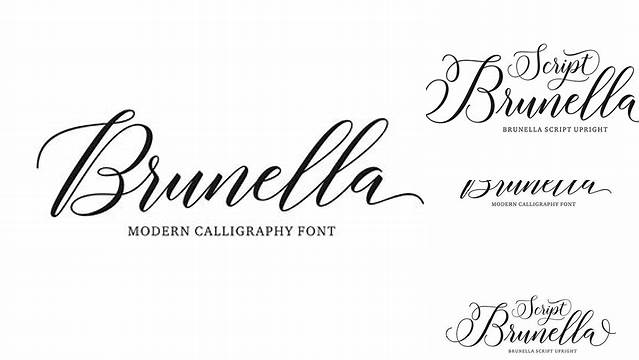
Hey guys! Ever stumbled upon a font that just speaks to you? That's Brunella Script for me. It’s elegant, it’s flowing, and it adds that perfect touch of class to any project. And the best part? You can snag the regular font for free! Let’s dive into everything Brunella Script, from what makes it so special to where you can download it and how to use it.
Brunella Script Regular: An Overview
Brunella Script Regular is a beautifully crafted typeface that exudes sophistication and charm. It’s perfect for adding a touch of elegance to invitations, logos, and branding materials. The flowing lines and delicate curves make it incredibly versatile, fitting seamlessly into both digital and print designs. What makes Brunella Script Regular stand out is its readability and aesthetic appeal, ensuring your message is not only seen but also felt. It's designed with precision, ensuring each character complements the others, resulting in a harmonious and visually pleasing text.
The Allure of Script Fonts
Why are script fonts like Brunella Script so popular? Well, they bring a human touch to digital designs. Unlike blocky, sans-serif fonts, script fonts mimic handwriting, adding warmth and personality to your projects. They evoke feelings of authenticity and artistry, making them ideal for creative endeavors. Script fonts create a sense of elegance and sophistication that's hard to achieve with other font styles. They’re perfect for adding a personal touch to your designs.
Using Brunella Script in Graphic Design
Brunella Script shines in graphic design projects. Use it for logos, branding, posters, and social media graphics. Its elegant style adds a touch of sophistication to any design. Experiment with different sizes and colors to see how Brunella Script can transform your visuals. Pair it with a clean, sans-serif font for a balanced look. Whether you’re designing a wedding invitation or a business card, Brunella Script can elevate your design to the next level.
Brunella Script for Branding
Branding is all about creating a unique identity, and fonts play a huge role. Using Brunella Script in your branding can convey elegance, sophistication, and a personal touch. It’s perfect for brands that want to project a sense of luxury or artistry. Consider using it in your logo, website, and marketing materials to create a cohesive brand image. Brunella Script helps your brand stand out and make a lasting impression.
Brunella Script in Web Design
In web design, Brunella Script can add a touch of personality to your website. Use it sparingly for headings, titles, or decorative elements to avoid overwhelming your visitors. Ensure the font is readable on different devices and screen sizes. Pair it with a clean, sans-serif font for the body text to maintain readability. Brunella Script can make your website more engaging and visually appealing, enhancing the user experience.
Conclusion: Embracing the Elegance of Brunella Script
So there you have it, folks! Brunella Script is an elegant and versatile font that can elevate your designs. It is available for free. With its flowing lines and delicate curves, it's perfect for adding a touch of sophistication to any project. Whether you’re designing wedding invitations, business logos, or social media graphics, Brunella Script is a great choice. Remember to download it safely, install it correctly, and use it creatively. Happy designing!